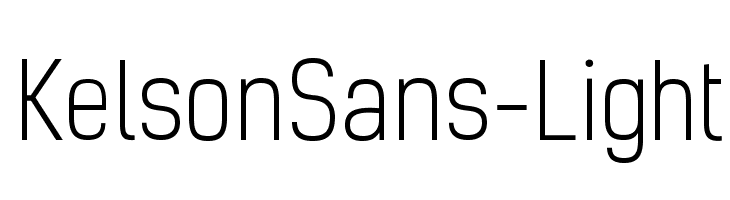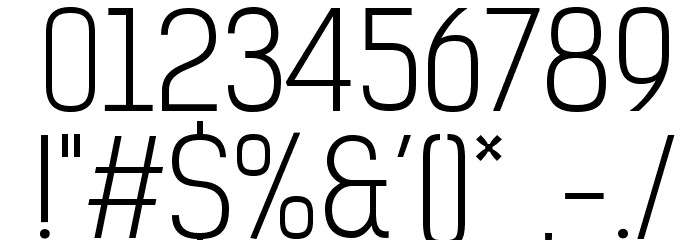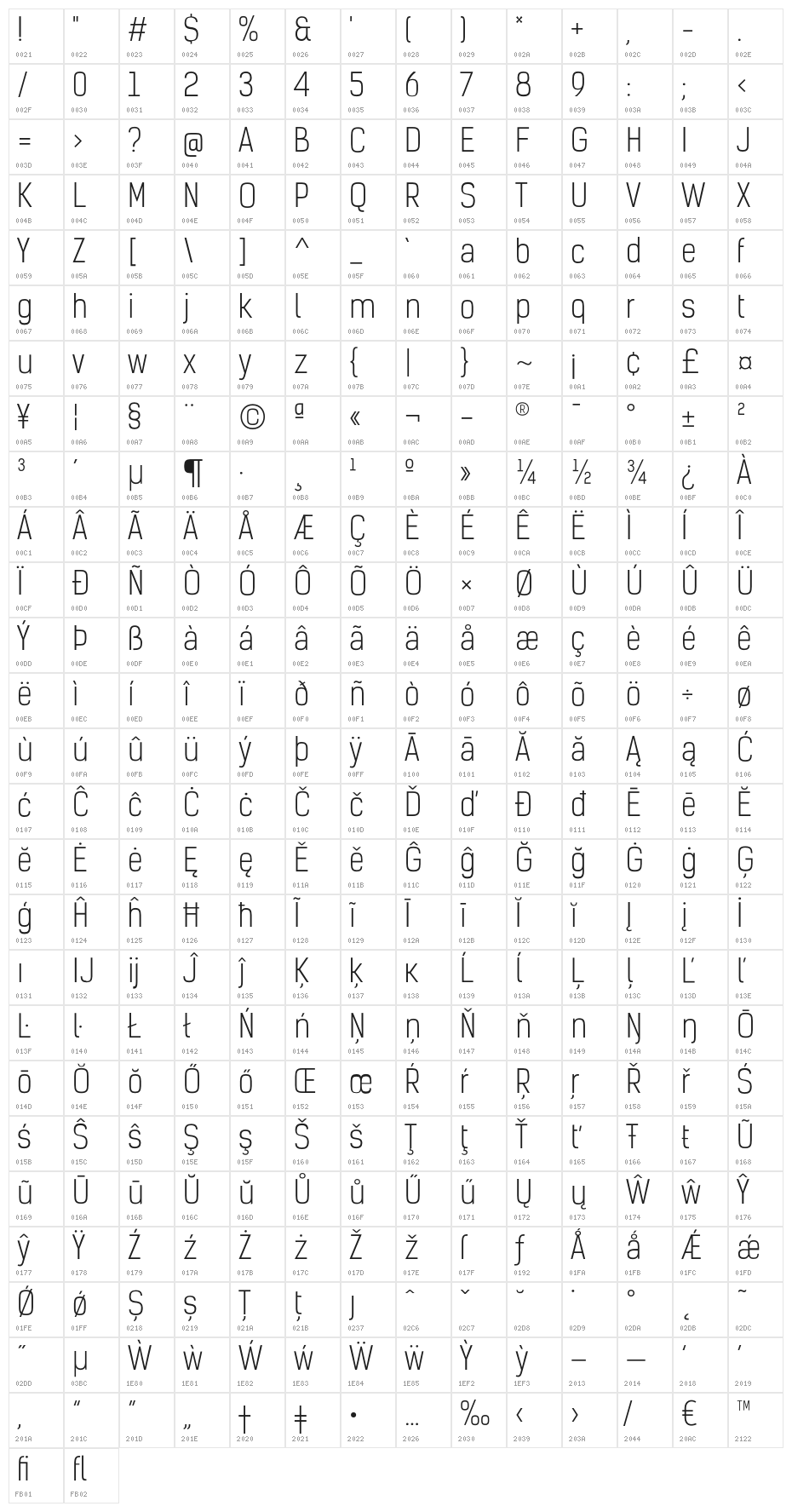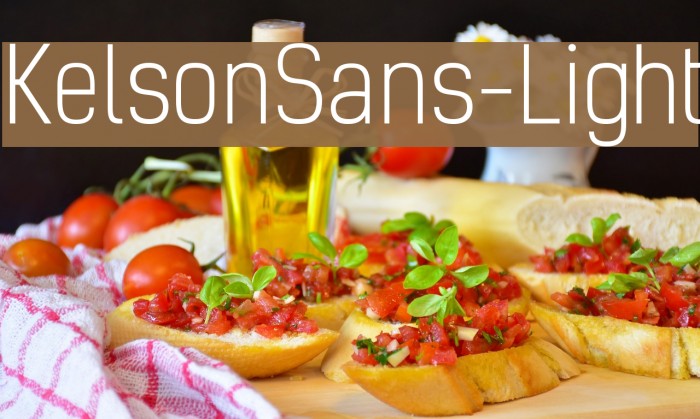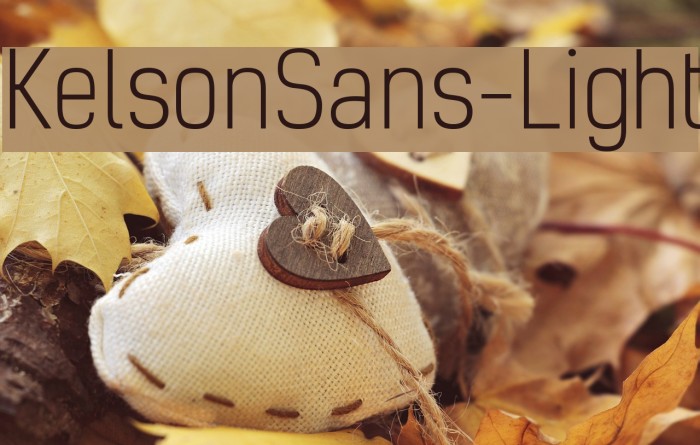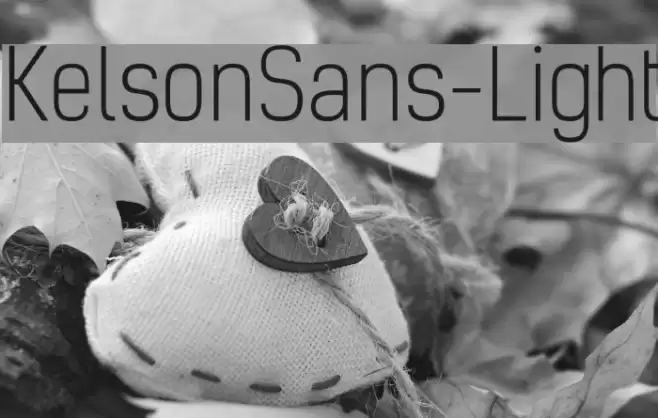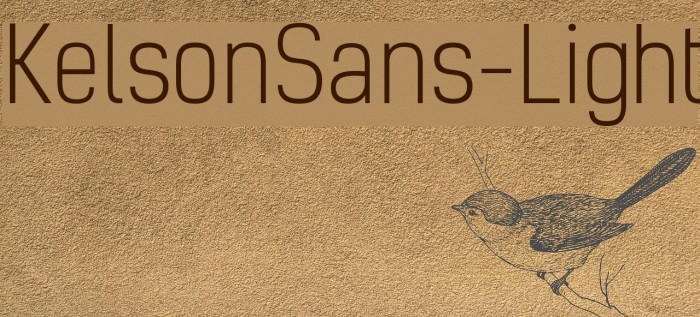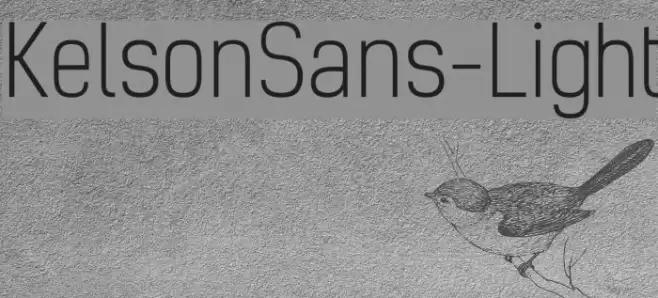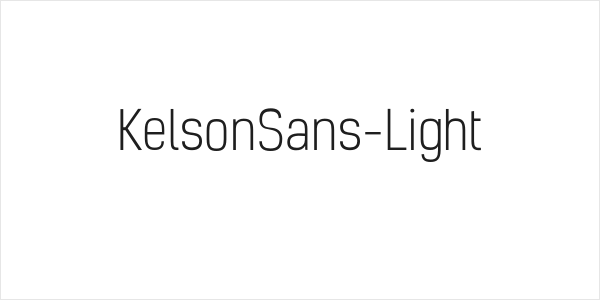
KelsonSans-Light Font
KelsonSans-Light Description
This font features a clean and modern sans-serif design with a light weight, offering a sleek and professional appearance. The characters are well-proportioned with a consistent stroke width, providing excellent readability. Its geometric shapes and open counters give it a contemporary feel, making it suitable for a variety of design applications. The font includes uppercase and lowercase letters, numbers, and a selection of special characters, ensuring versatility in use. Its minimalistic style is ideal for projects that require a subtle yet sophisticated touch.